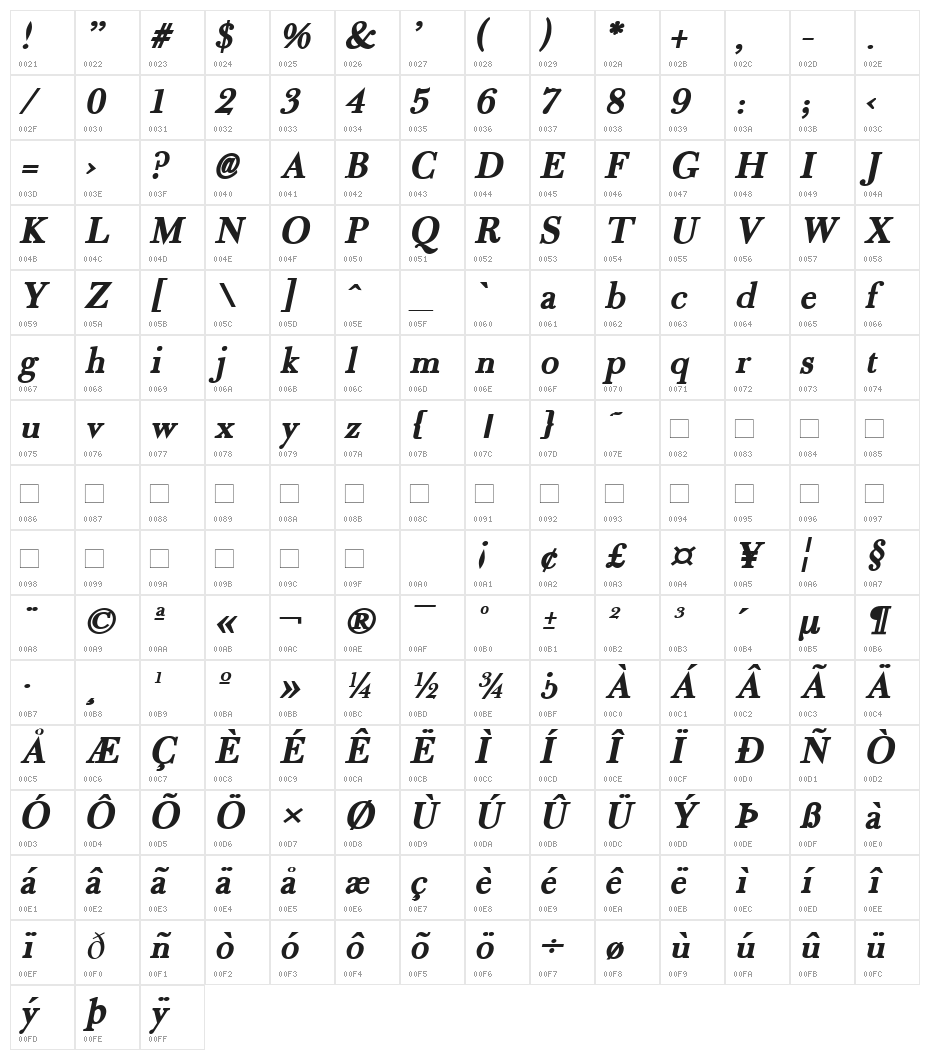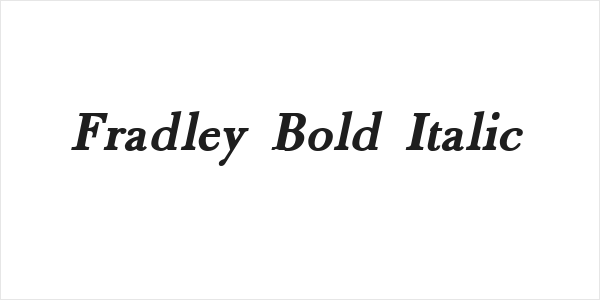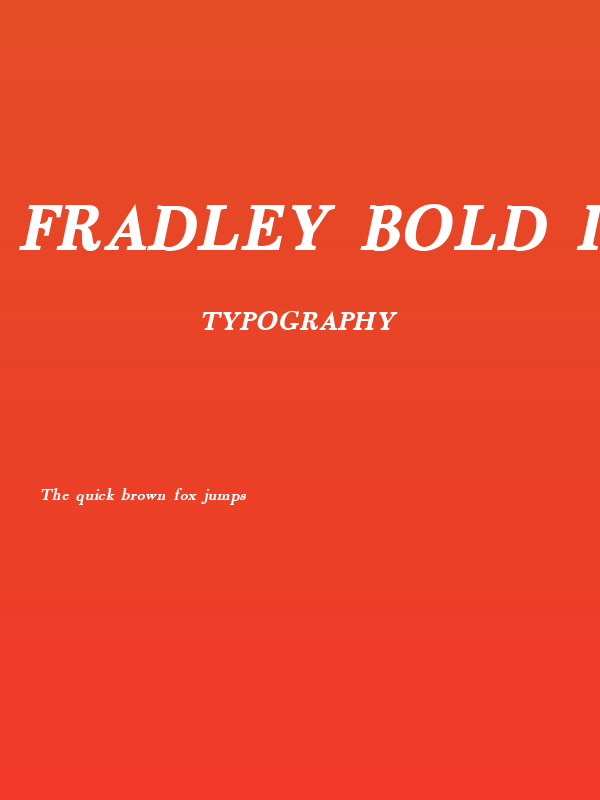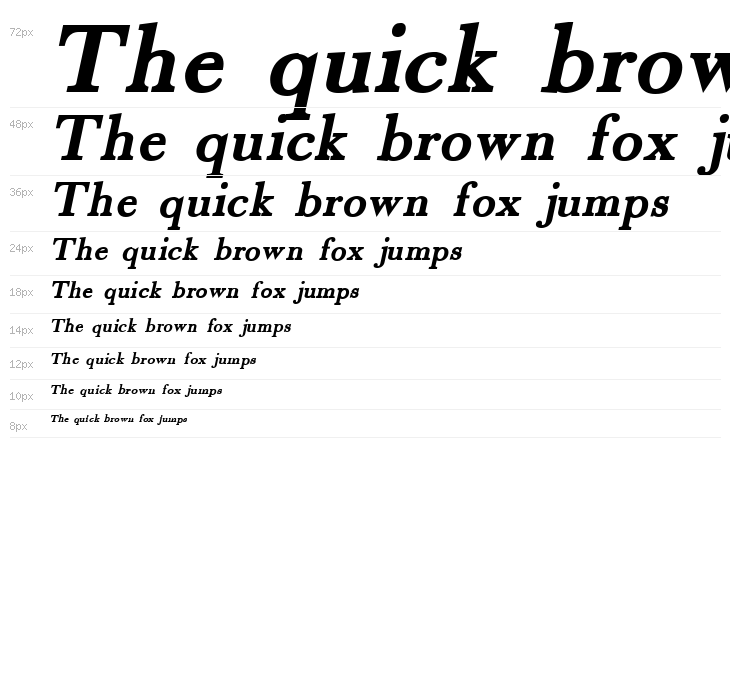
Fradley Bold Italic Font
Fradley Bold Italic Description
This font exhibits a bold and italicized style, characterized by its strong presence and dynamic slant. The serifs are pronounced, adding a touch of elegance and formality. The letters are well-proportioned, with a consistent stroke width that enhances readability. The numerals are clear and distinct, maintaining the same bold and italicized characteristics as the letters. Special characters are designed with the same attention to detail, ensuring uniformity across all glyphs. This font's boldness and italicization make it suitable for impactful and stylish text presentations.
| Use Case | Headlines, Logos, Editorial design |
| Proposed Projects | Ideal for branding, headlines, editorial design, and formal invitations. |